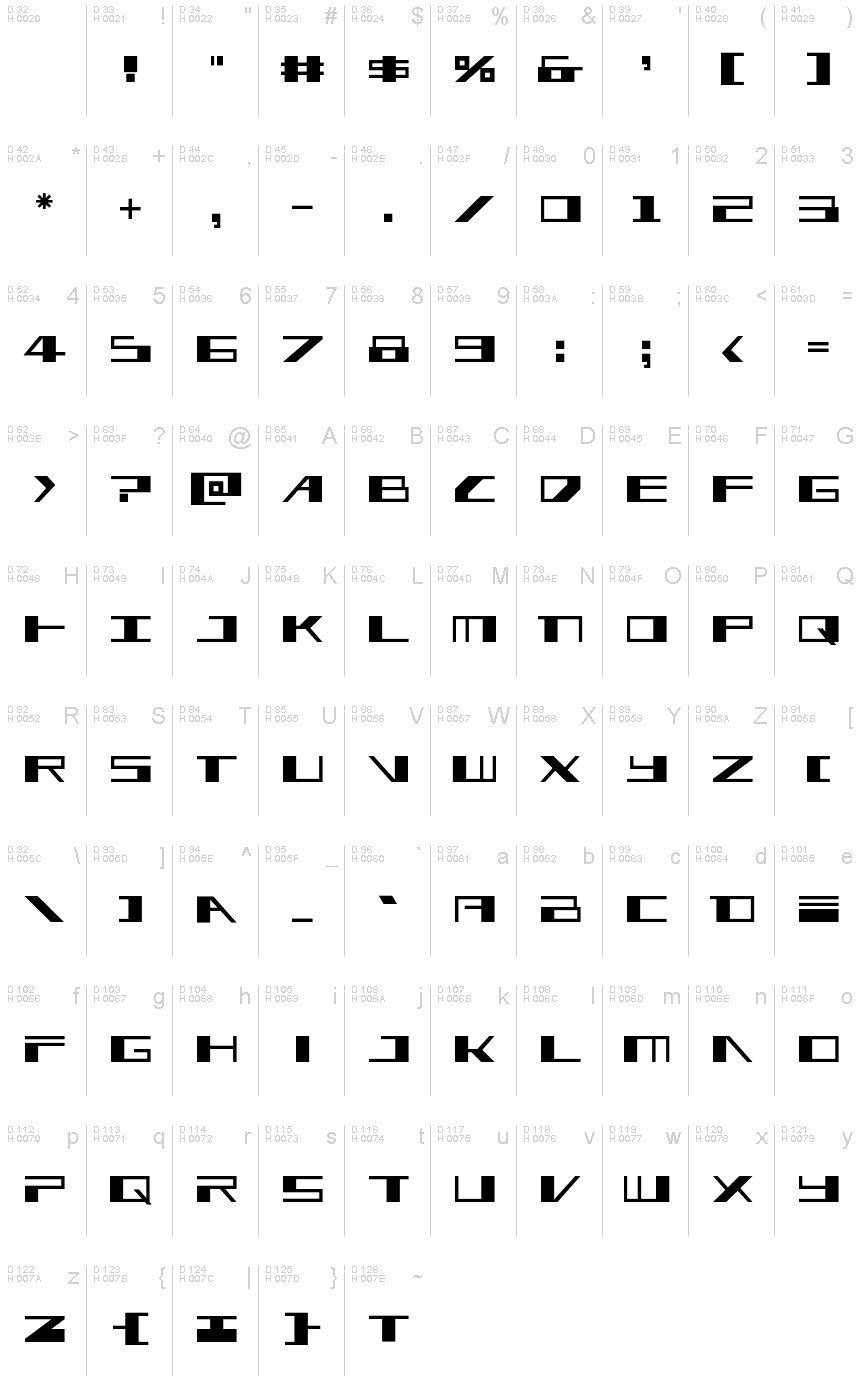
3AGLE
3AGLE, designed by Iconian Fonts, soars beyond conventional typography with its bold, extra-expanded display profile. This futuristic font embodies innovation and versatility, making it an exceptional choice for a myriad of creative endeavors.
Whether used in tech-centric designs, modern branding projects or dynamic advertising campaigns, 3AGLE's distinct style captivates audiences and gives your visuals a cutting-edge aesthetic.
Unleash its potential to elevate your message with a font that's engineered to stand out.